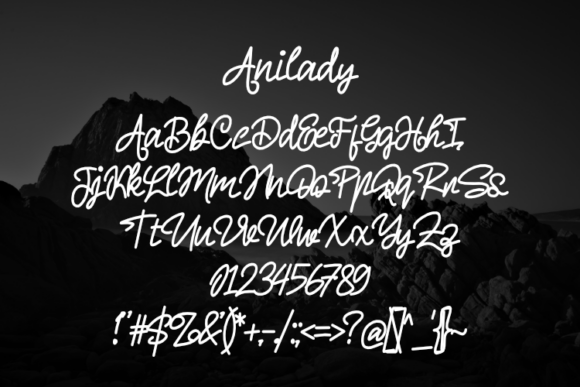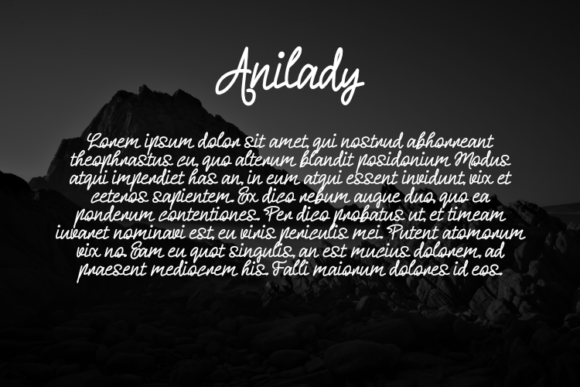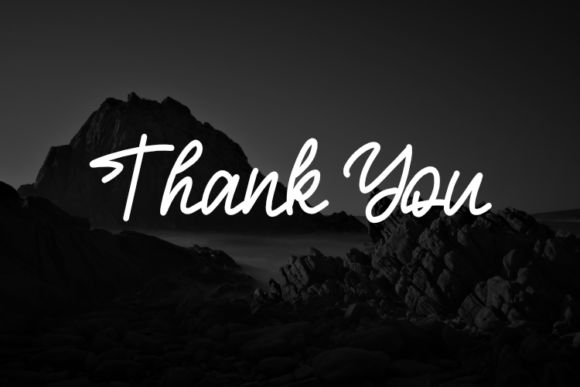
Unleash Your Creativity with Anilady Font: Elevate Your Designs to Extraordinary
Welcome to the captivating realm of ‘Anilady’, a versatile font designed to breathe life into your clothing, t-shirt designs, and a myriad of other products. Born out of a passion to infuse elegance and charm into your creations, Anilady is more than just a font – it’s a creative companion that helps you turn the ordinary into the extraordinary.
The Birth of Elegance: Understanding Anilady Font
Anilady font is crafted to bring a distinct character to your designs. Whether you’re a seasoned designer or a DIY craft enthusiast, this dynamic font is engineered to enhance your creative output. With Anilady, you can add a touch of sophistication and whimsy to your projects, making them stand out in a crowded creative landscape.
Compatibility and Versatility: The Anilady Advantage
One of the standout features of Anilady font is its exceptional compatibility. This font is designed to work seamlessly with every design software and platform, ensuring that your creative process is smooth and hassle-free. Whether you’re working on a graphic design project, crafting custom t-shirts, or creating digital content, Anilady integrates perfectly, allowing you to focus on what you do best – creating.
Unlocking Creative Potential with Anilady
Anilady is more than just a font – it’s a key to unlocking your creative potential. With its elegant and charming aesthetic, Anilady empowers you to let your creative voice speak volumes. Whether you’re designing for personal enjoyment or professional purposes, this font provides the perfect blend of style and versatility.
Transforming Ordinary into Extraordinary
The true magic of Anilady lies in its ability to transform your designs from ordinary to extraordinary. By infusing your projects with a distinct character and charm, Anilady helps you connect with your audience on a deeper level. For crafters and designers, this means that even the simplest designs can be elevated to new heights, making them more engaging and memorable.
Conclusion: The Magic of Anilady Awaits
The world of ‘Anilady’ is a gateway to endless creative possibilities. This versatile font is designed to inspire designers and crafters to push the boundaries of their imagination, creating designs that are not only visually stunning but also deeply engaging. With Anilady, you can transform your creative vision into reality, making every project a masterpiece. So, let the magic begin, and immerse yourself in the captivating world of Anilady.
Discover the elegance, charm, and versatility of Anilady font today, and take your designs to extraordinary new heights.